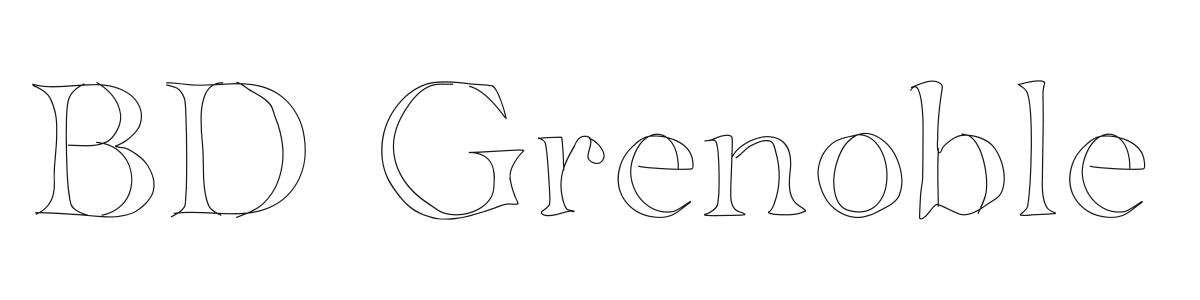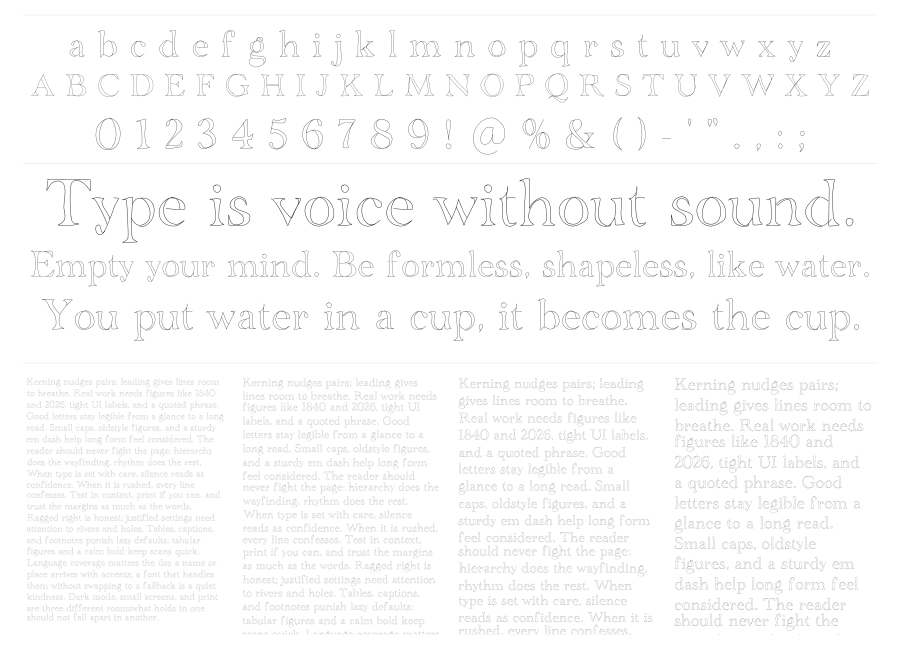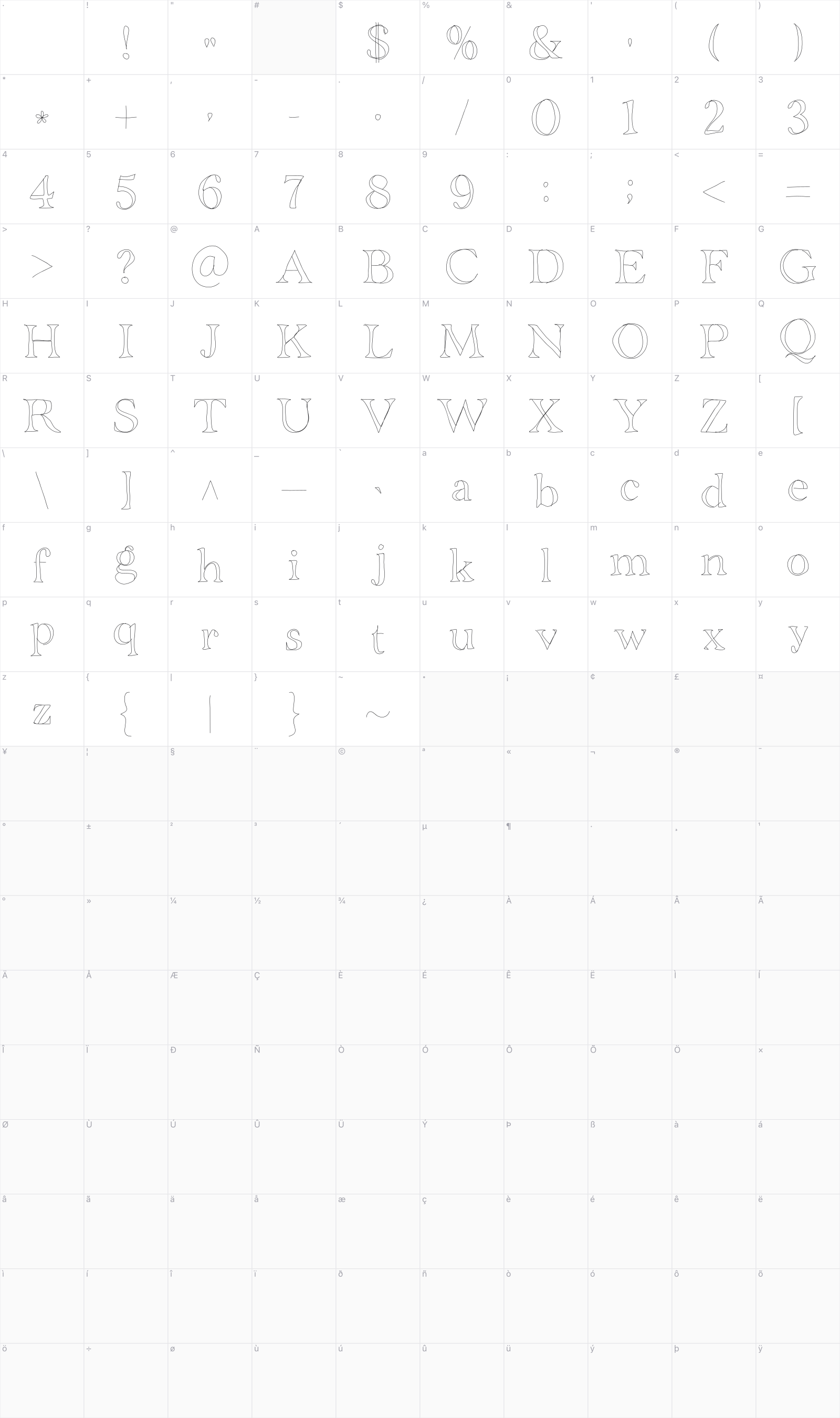
BD Grenoble
BD Grenoble is an outline serif with classical old-style proportions and a delicately hand-drawn quality. The open contour treatment strips away all fill, leaving only graceful strokes, ball terminals, and bracketed serifs traced in hairline weight. It reads best large, where the fine outline detail and romantic character really come through.